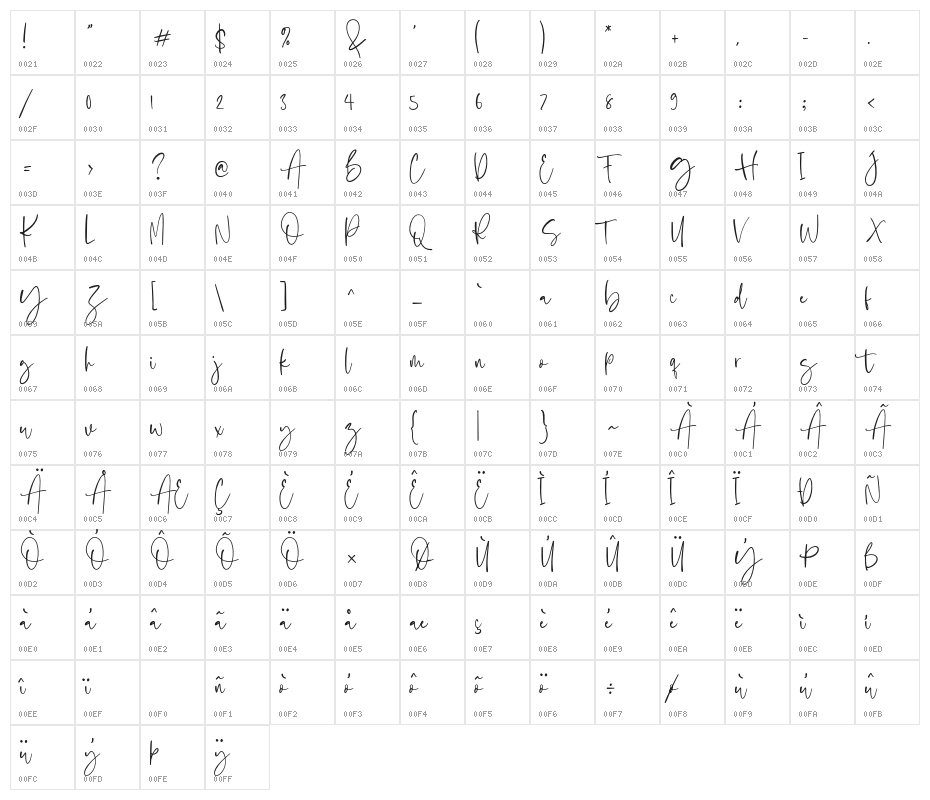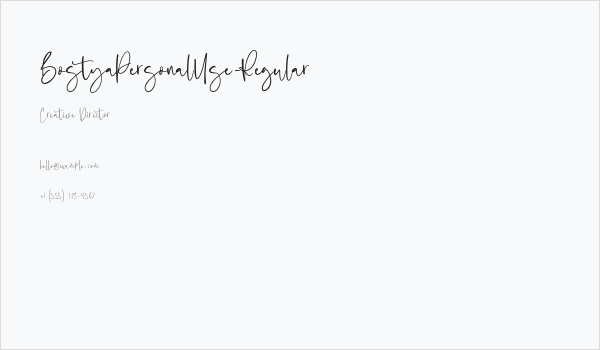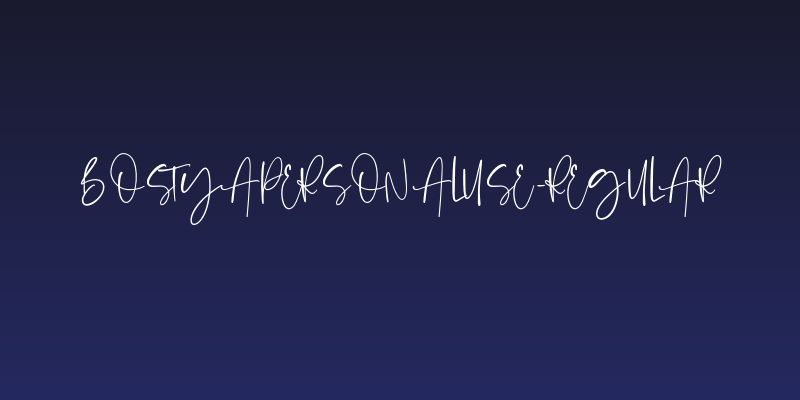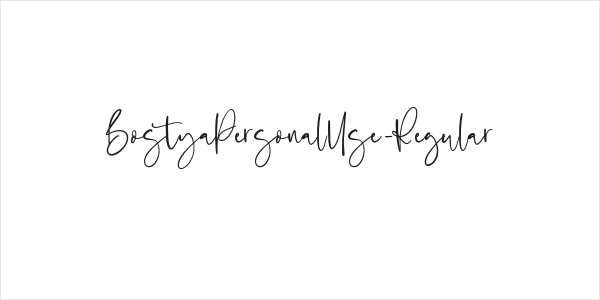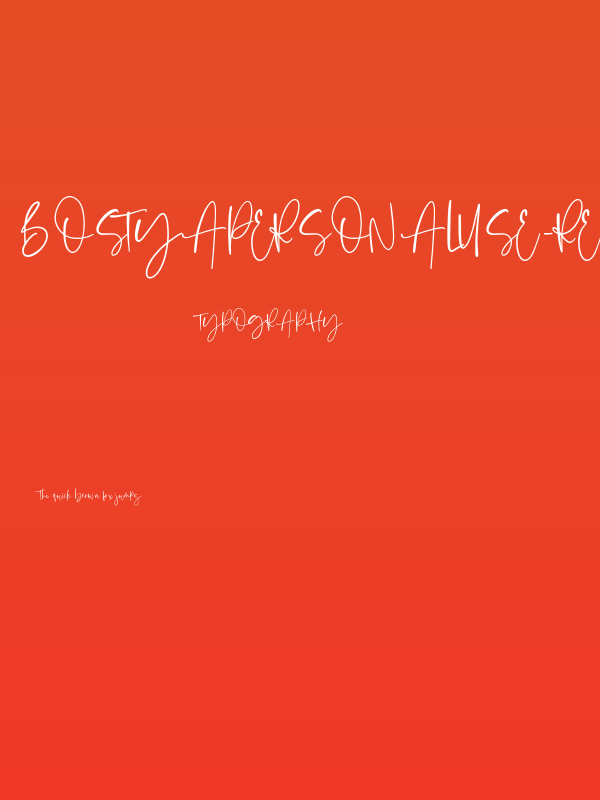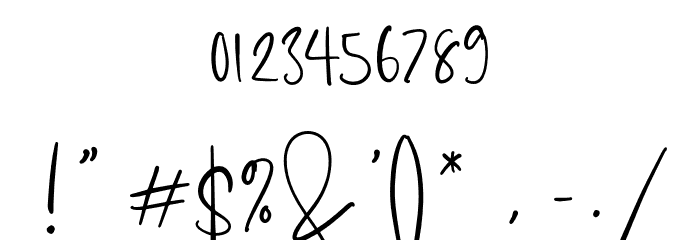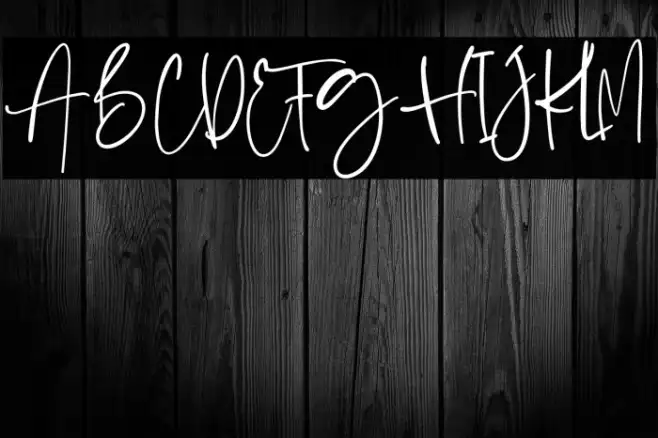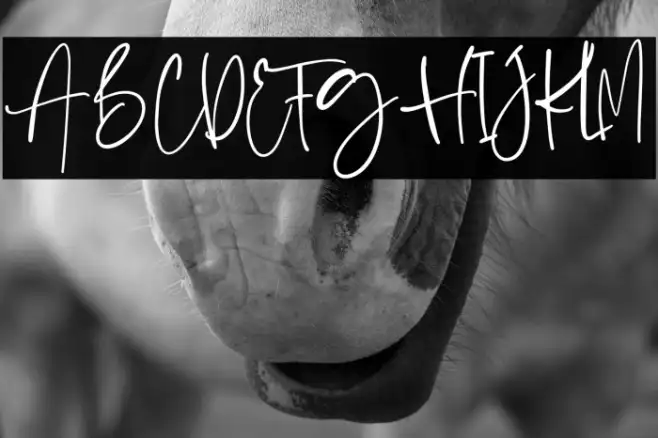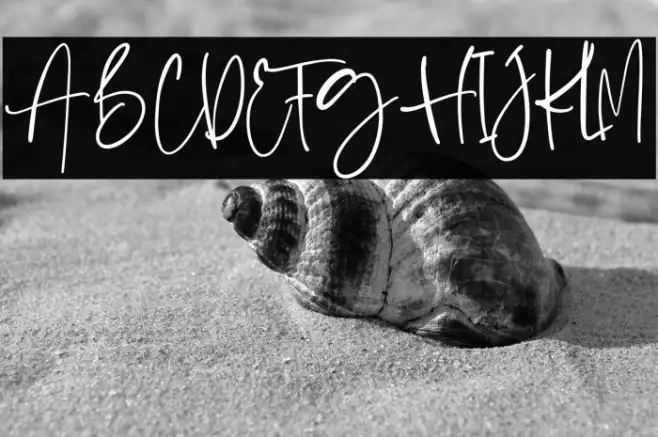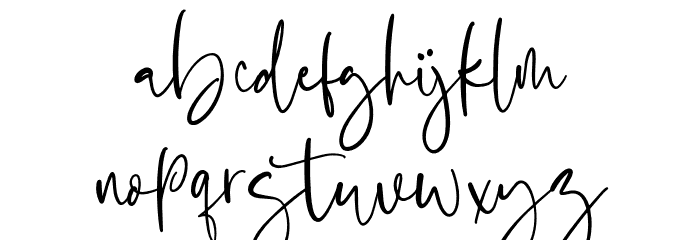
BostyaPersonalUse-Regular Font
BostyaPersonalUse-Regular Description
This font features a lively and expressive handwritten style, characterized by its fluid and dynamic strokes. The letters are connected in a cursive manner, giving it a personal and informal touch. The uppercase letters are bold and prominent, while the lowercase letters maintain a consistent flow, enhancing the overall legibility. The numerals and special characters are crafted with the same playful and artistic flair, making them stand out. This font is perfect for projects that require a personal, creative, and approachable feel.